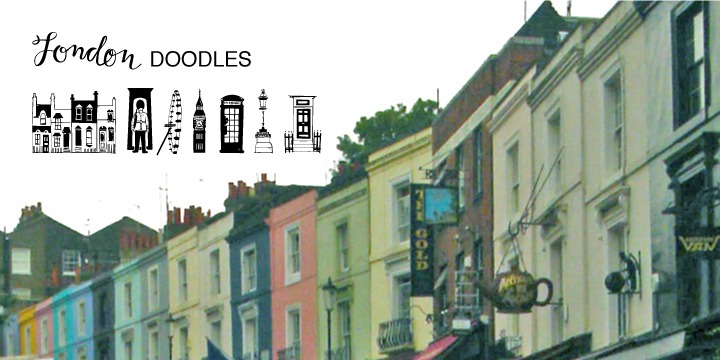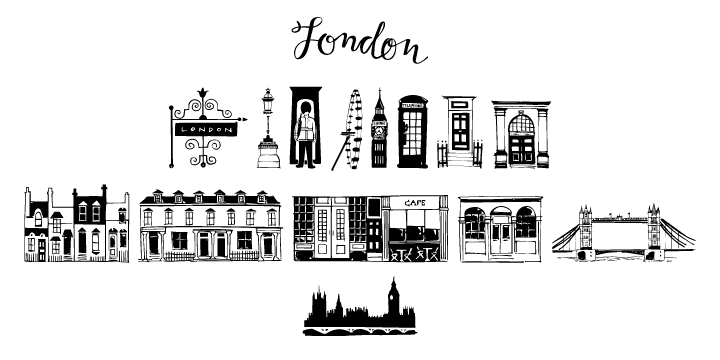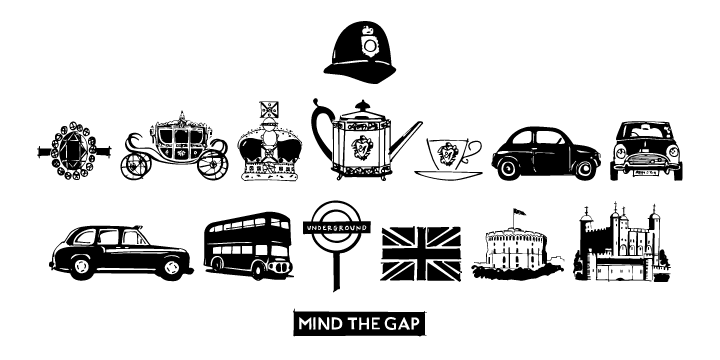
London Doodles (1 font)
29 illustrations and a scrip word London. Kate's ring, the Queen's carriage, crown, skyline, cityscapes, cars, double-decker bus, castles, bridge, tea items, flag and more.